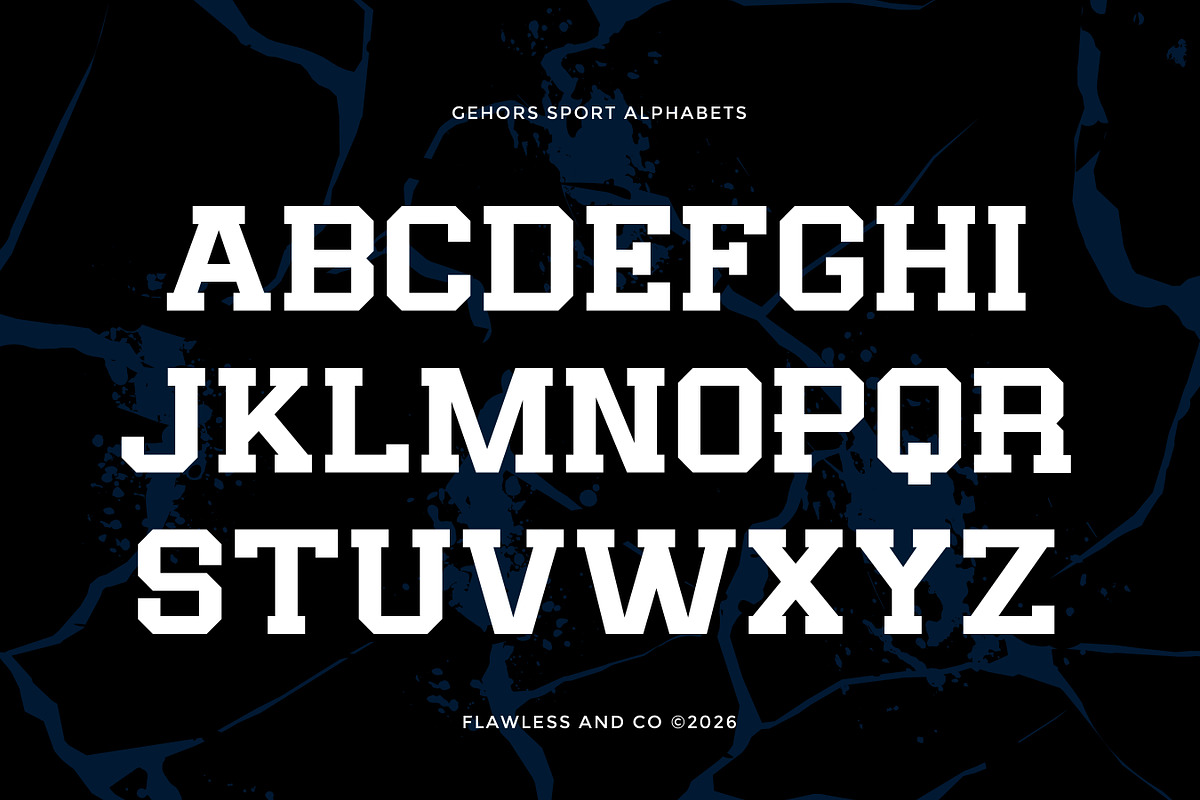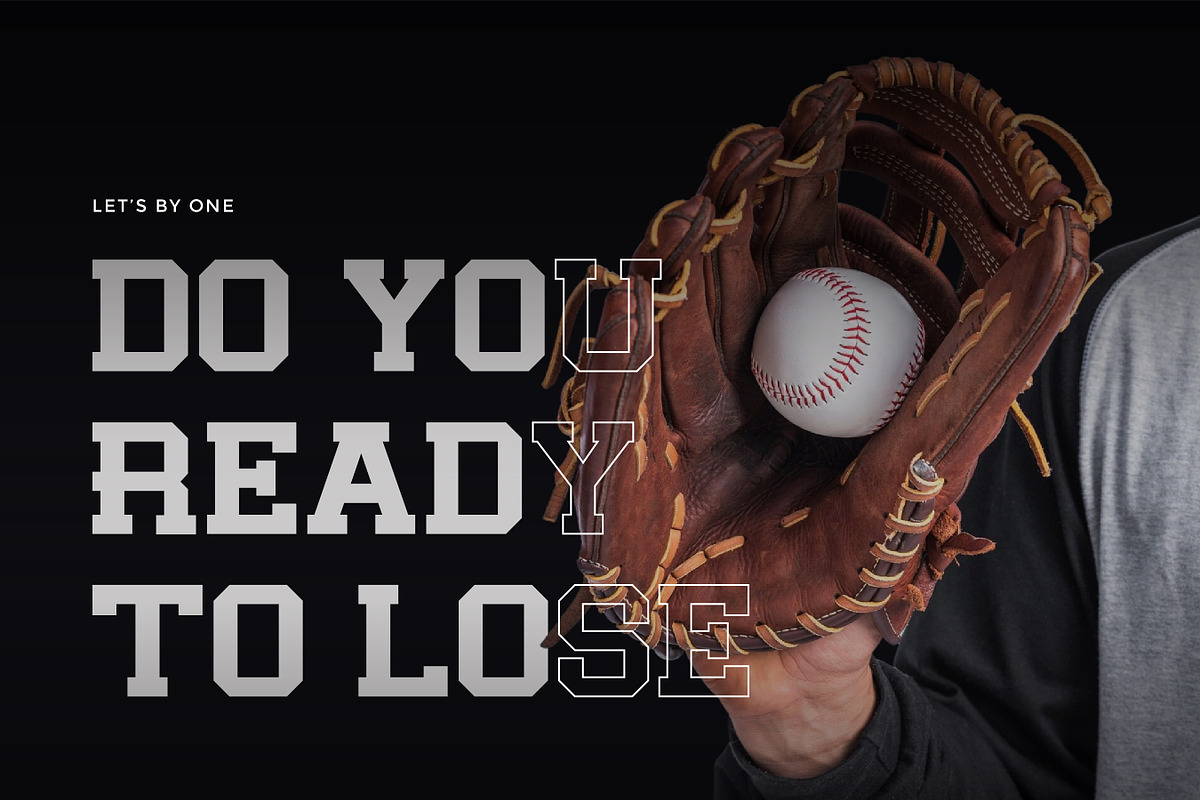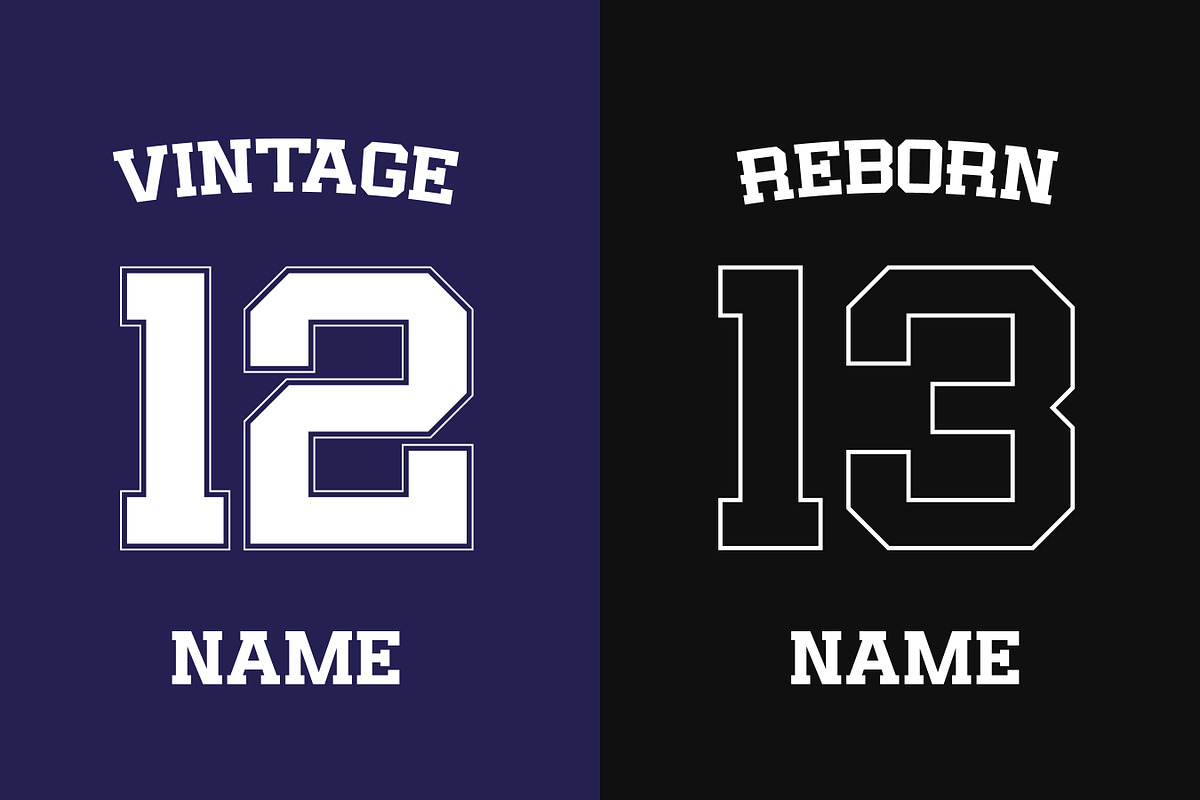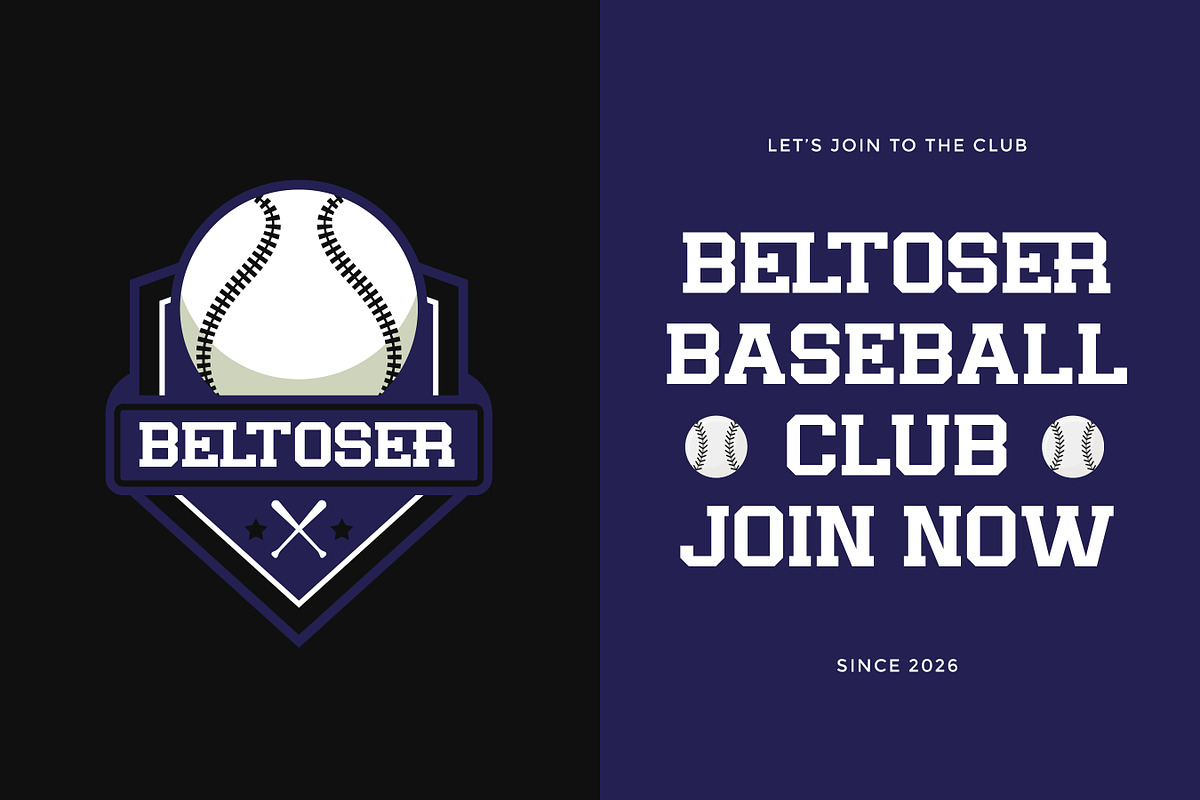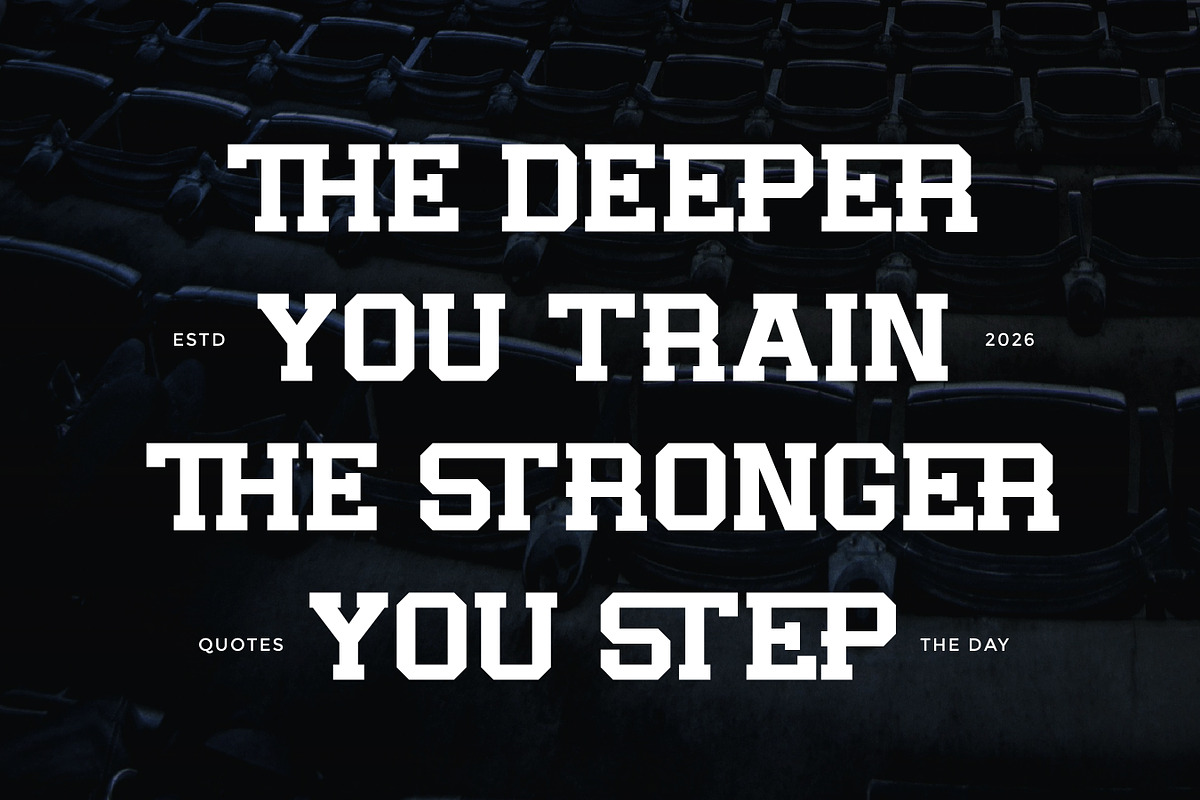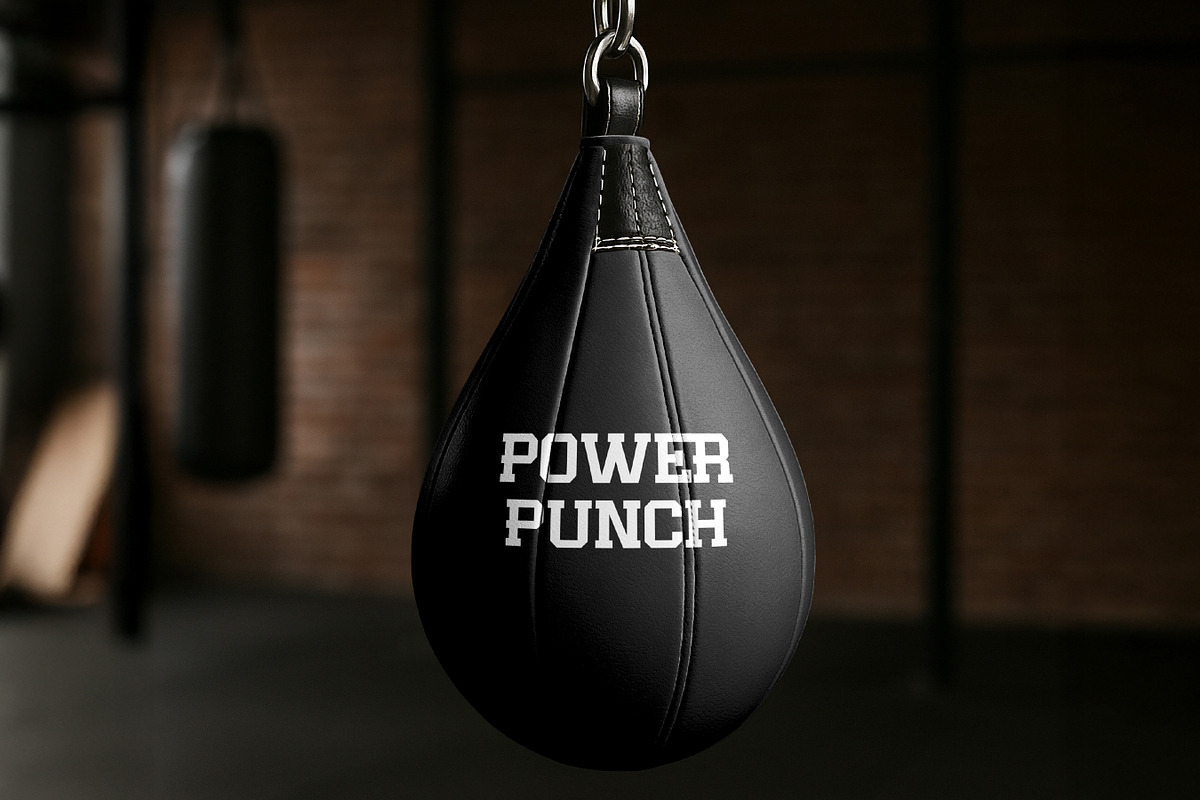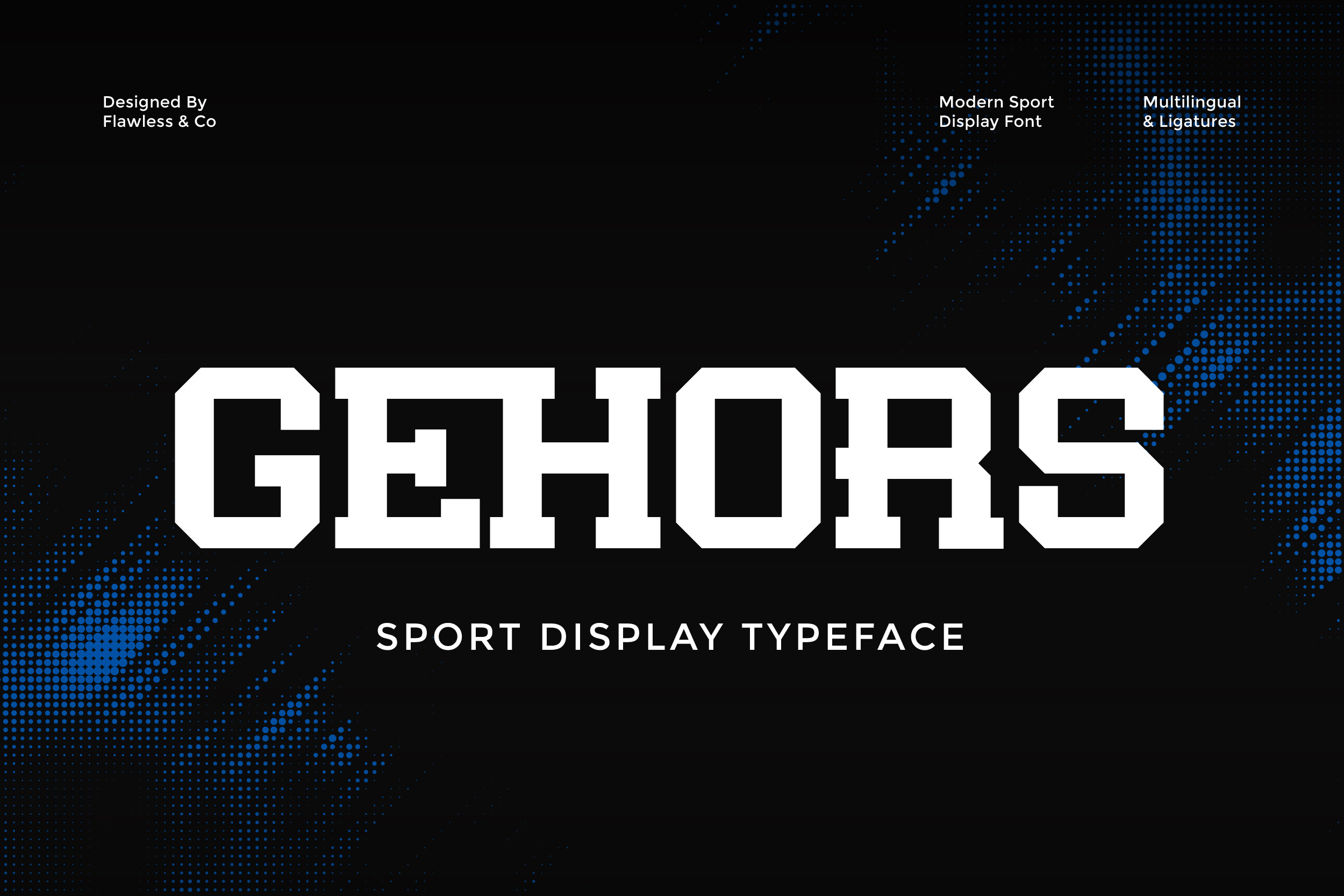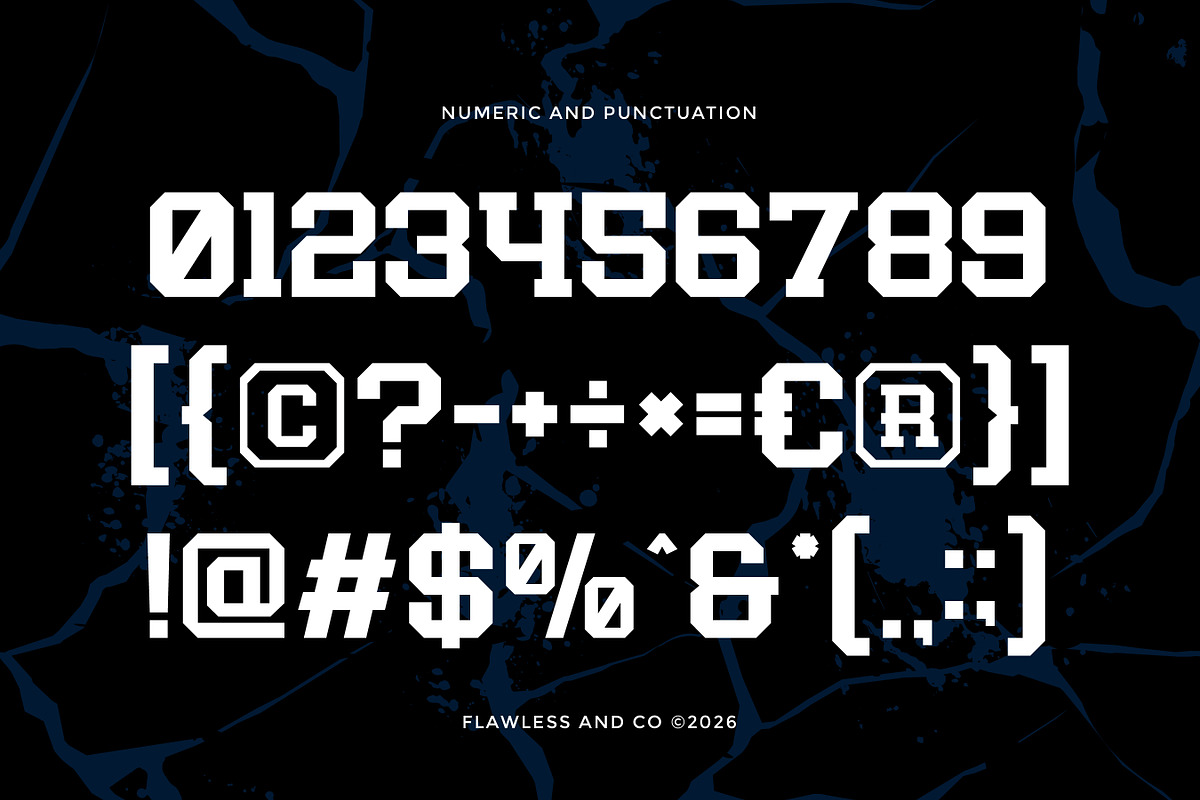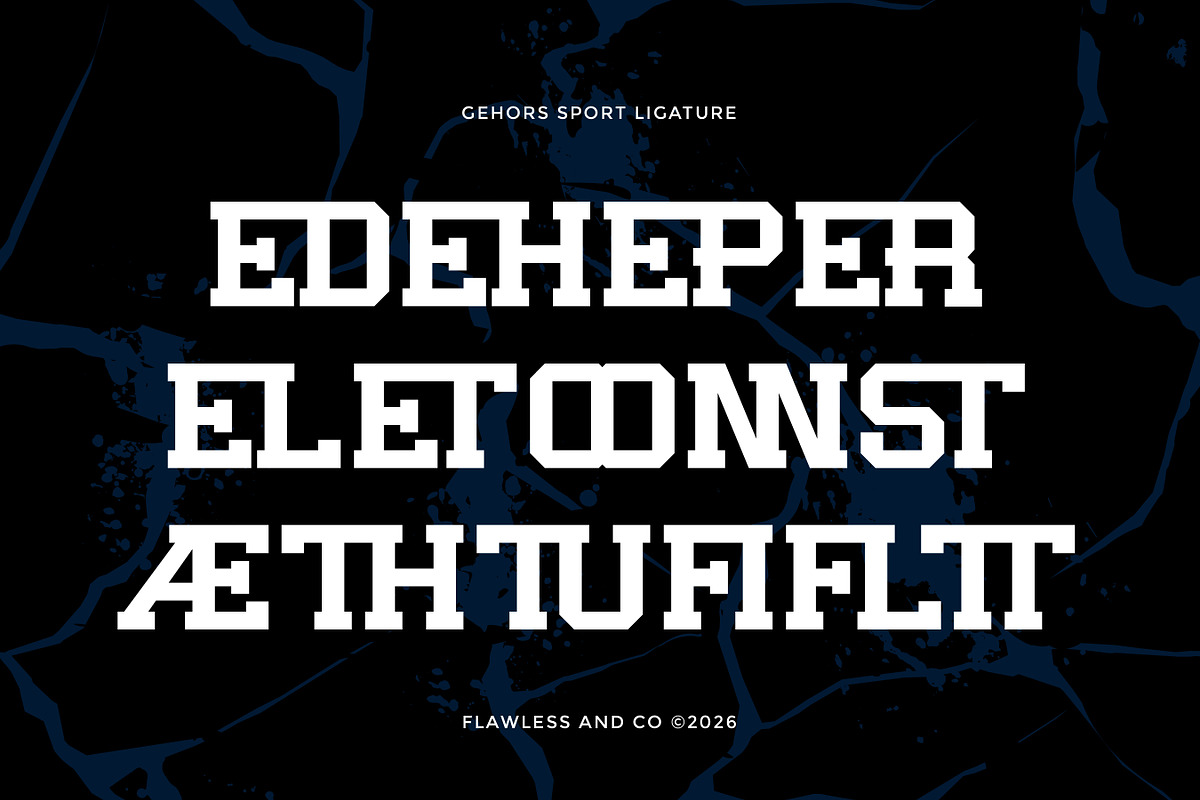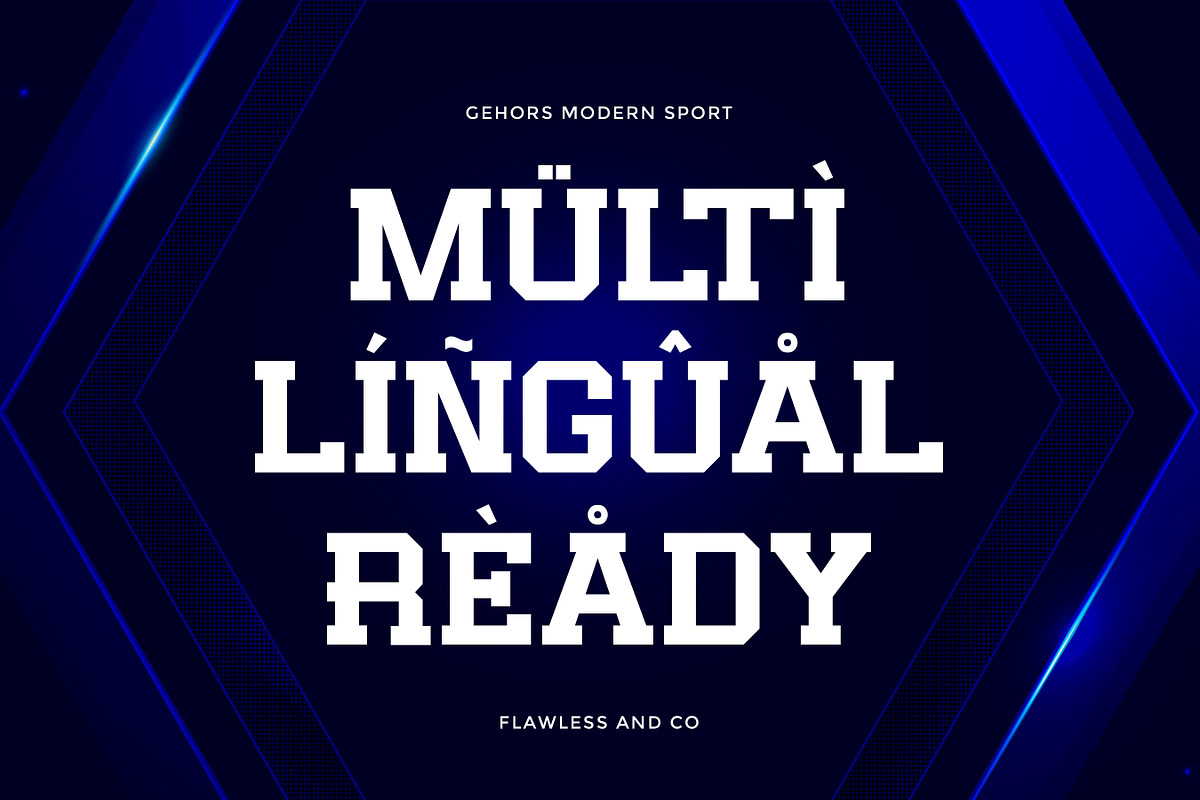
Gehors - Sport Display Font
Gehors is a modern sport display typeface built to express strength, speed, precision, and competitive energy. Featuring sharp angles, bold structure, tight spacing, and a forward-moving structure, Gehors creates a sense of motion that feels strong and aggressive. Its sporty character is designed to stand out in bold headlines while maintaining clarity and impact. Whether you’re designing for teams, events, or athletic brands, Gehors delivers a clean yet powerful visual identity inspired by performance and energy.
Alternates & Ligatures
Who Should Use Gehors?
Gehors is perfect for designers, sports creators, and brands that want to highlight speed, strength, and modern athletic style. It’s especially suited for projects that require a sharp and energetic display font.
Suitable For:
Sports branding and team logos
Esports and gaming graphics
Fitness and training campaigns
Athletic apparel design
Event posters and promotions
Social media sports content
Streaming and YouTube visuals
Dynamic headline typography